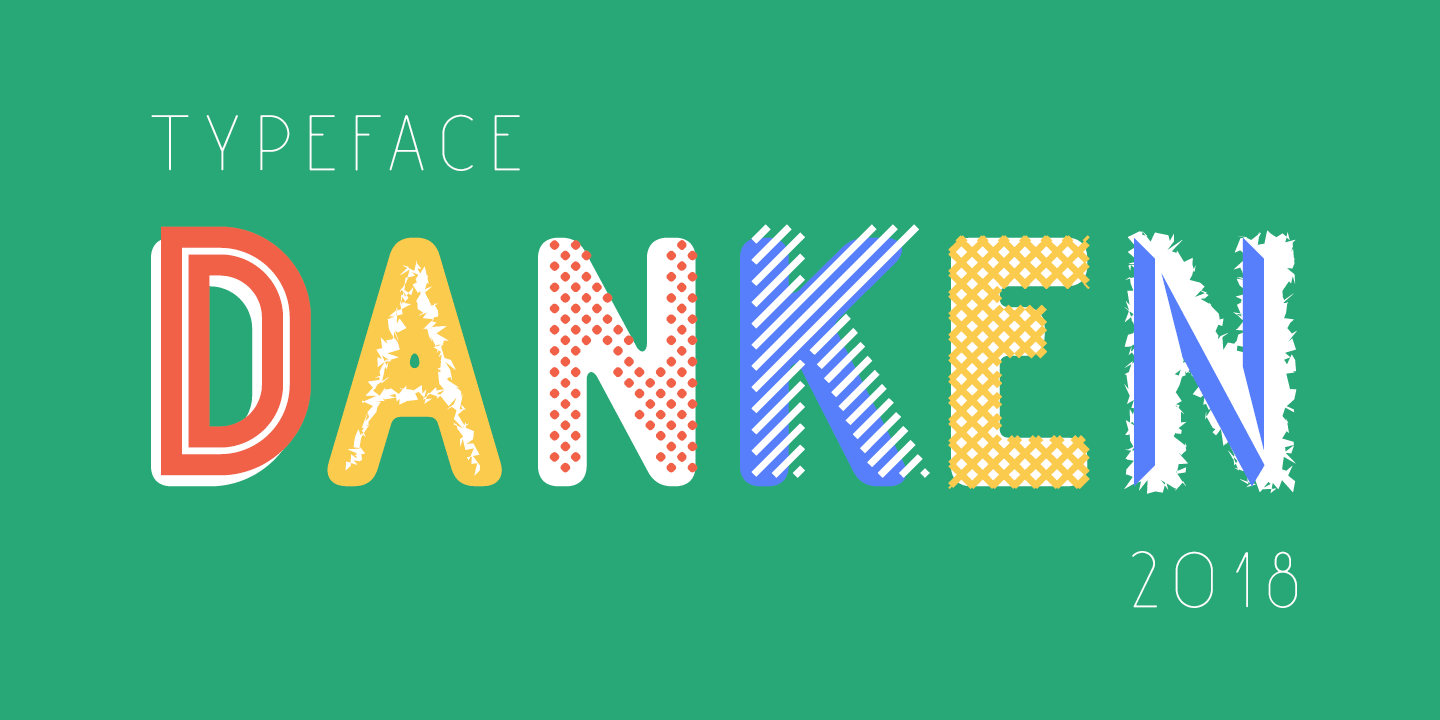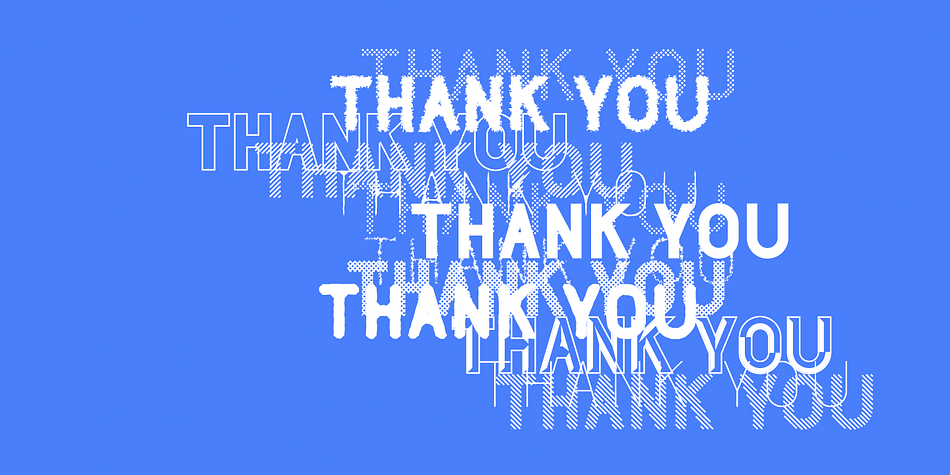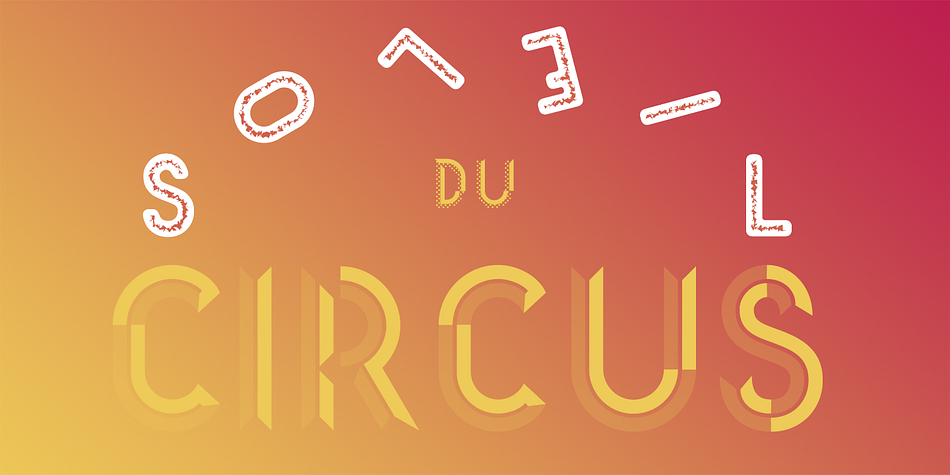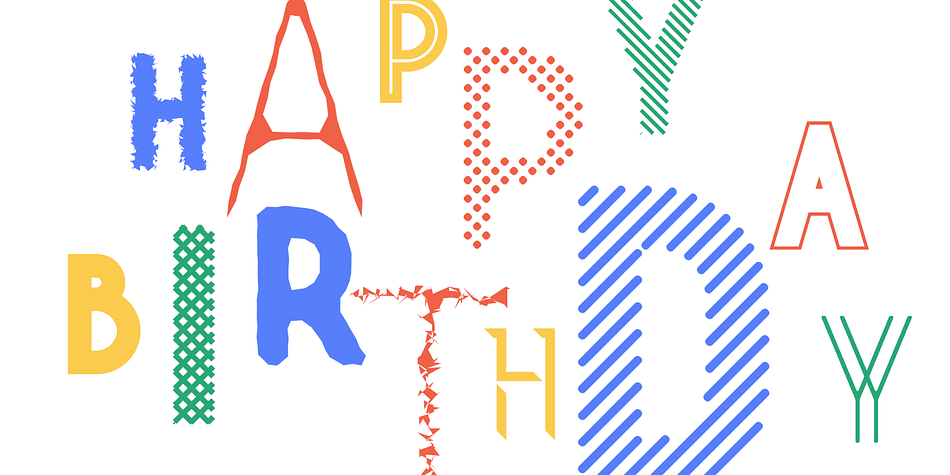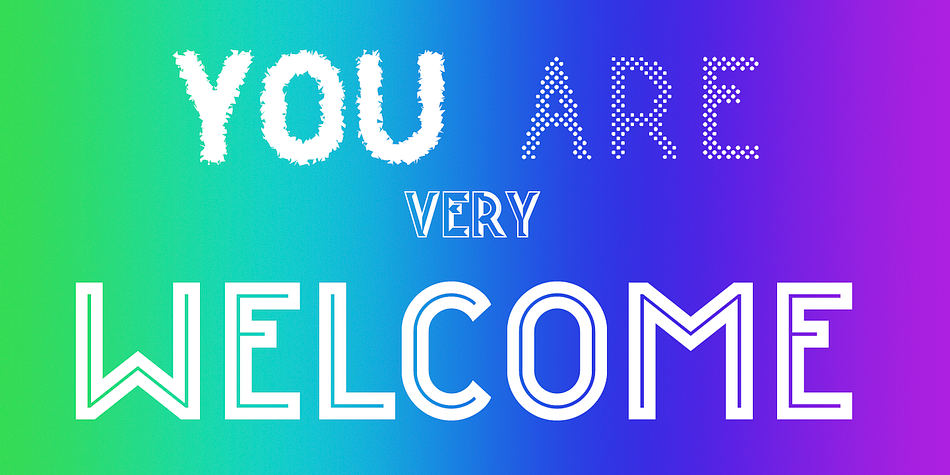
Designed by Alex Etewut, Danken is a display sans font family. This typeface has twenty-five styles and was published by Etewut.
Danken is an all caps display typeface was created to mix font styles and create unlimited variety of effects.